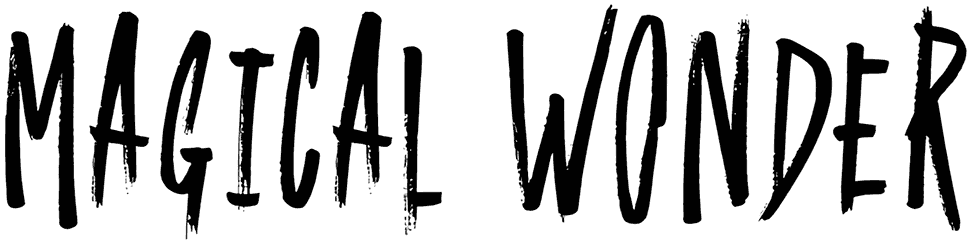
Magical Wonder Font
Magical Wonder is a startling-looking brush font that can convey any threatening or frightening feeling. For a variety of artwork that requires a roaring and somber look, its fascinating and whimsical design is ideal.
Even though it only supports uppercase letters, it is ideal for adding a creative touch to branding, packaging, apparel, and poster designs. Download it right now and give your projects or presentations a new look with its saucy design.